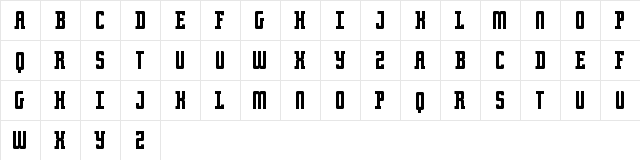
Retro serif Regular
Design Context for Retro serif Typeface
Retro serif has the warm character of retro typography — evoking diners, record sleeves, and the golden age of print advertising.
Font Pairing: Combine Retro serif with a simple slab or neutral sans — period-accurate companions reinforce the vintage feel without competing for attention.
Pro Tip: Lean into Retro serif's period character by pairing it with aged paper textures, muted colour palettes, and vintage illustration styles.